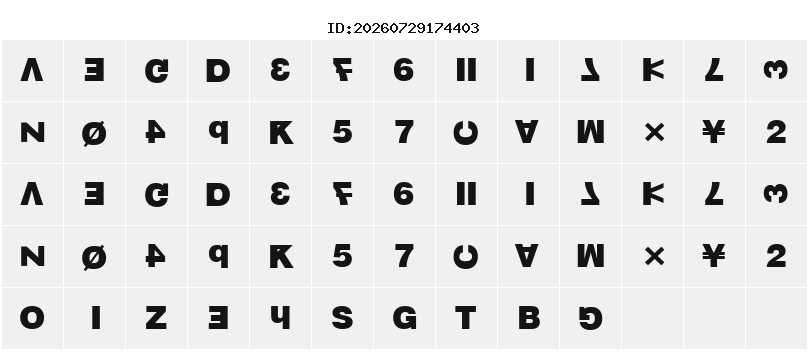
Knulla Preview
• Font Name: Knulla
• Full Font Name: Knulla
About Knulla.ttf
Knulla.ttf is a modern, elegant sans-serif font designed for ultimate readability and visual harmony. Perfect for branding, headlines, web design, and print materials.